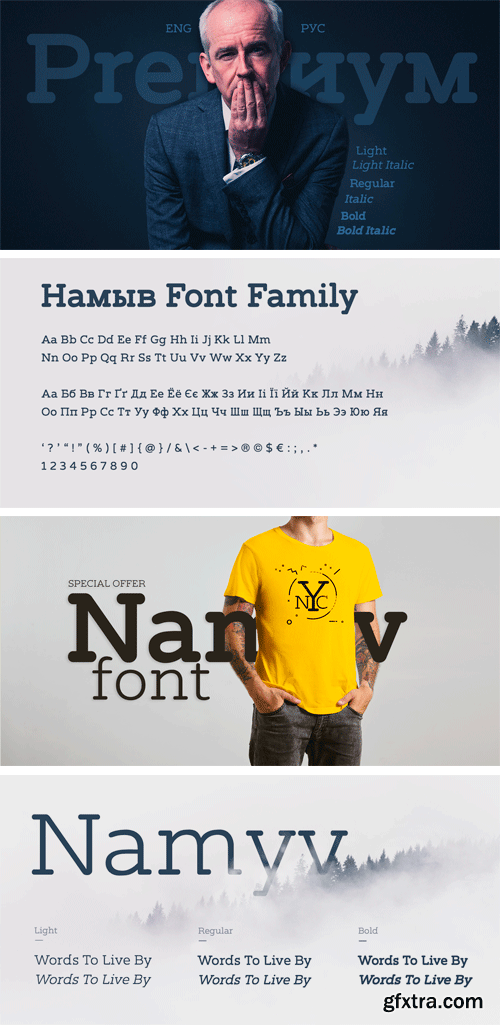
南美文Font Family
Namyv is first font I did... and for now it’s improved! I combined all the best of Namyv font. It’s unique and interesting. A great choice for website and app designs. I'm using Namyv Bold for posters and other print designs. Its very strong! And you can combine Namyv font with any Sans Serif font. They will look fantastic.Cyrillic characters included!